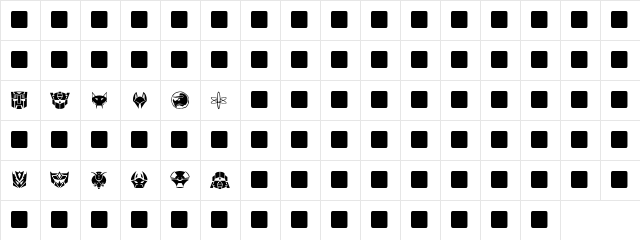
Cybertron Generations Normal
Design Context for Cybertron Generations Typeface
Cybertron Generations has a distinctly futuristic character, with geometric precision and clean angles that feel at home in technology, gaming, and sci-fi contexts.